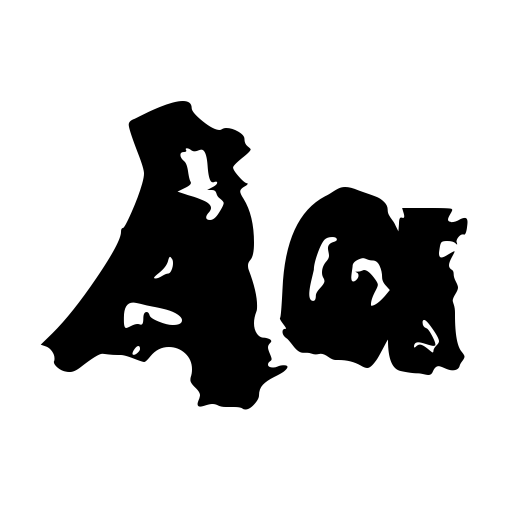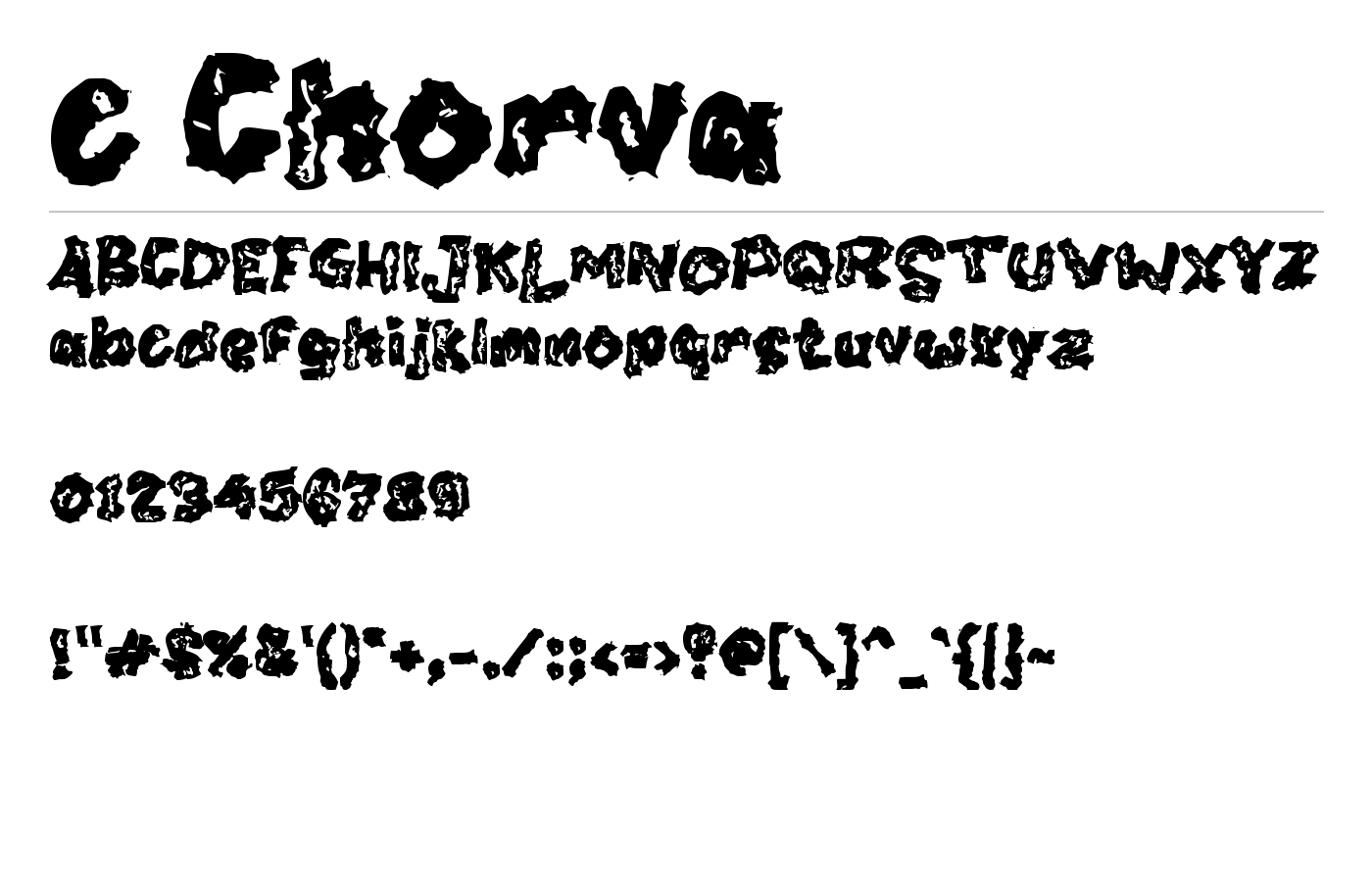
c Chorva is a bold, irregular display font with a textured, almost distressed look that gives it a playful and edgy personality. Its heavy weight and rough, organic shapes make it ideal for eye-catching headlines, posters, or creative branding where a strong, unconventional style is desired. This font is best suited for projects that want to convey a sense of fun, creativity, and boldness rather than clean professionalism.
c Chorva Font